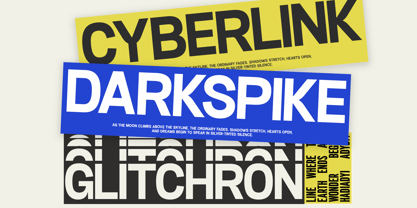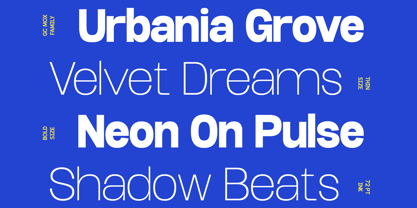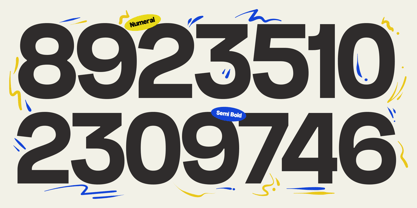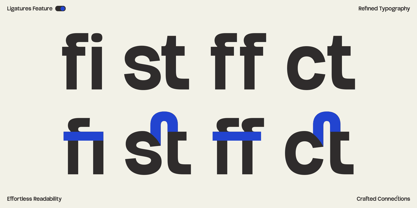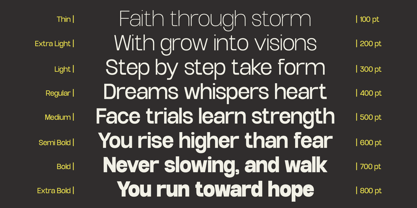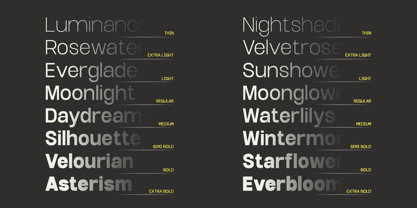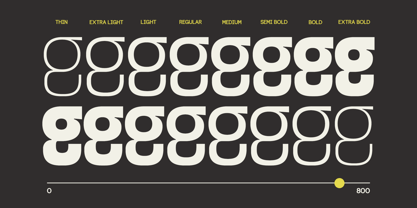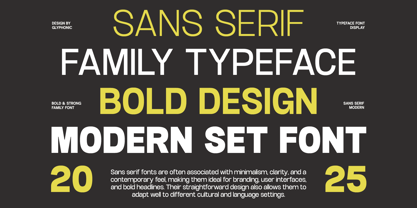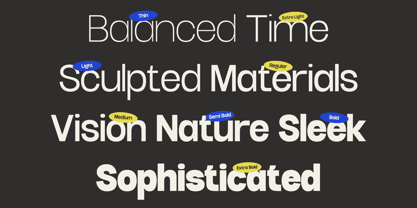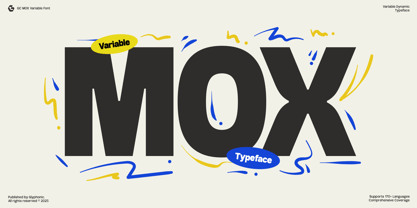
GC Mox
The GC Mox Font Family was designed by Muhammad Hafiizh Solana and published by Onyx Studio. GC Mox contains 8 styles and family package options.
GC MOX is a bold and dynamic variable sans typeface that blends powerful weight with playful flexibility. Designed to stand out in any context, this typeface is perfect for branding, posters, digital campaigns, packaging, motion graphics, and editorial design.
With its strong geometric shapes, wide proportions, and adjustable variable styles, GC MOX gives designers the freedom to adapt typography to any creative direction. Whether you need a bold statement headline or a flexible layout solution, this font delivers both energy and versatility.
Features:
• Uppercase & Lowercase
• Variable Font Support
• Ligatures & Stylistic Alternates
• Numbers & Punctuation
• Multilingual Support (170+ Languages)
Make your design bold, playful, and full of energy with GC MOX.